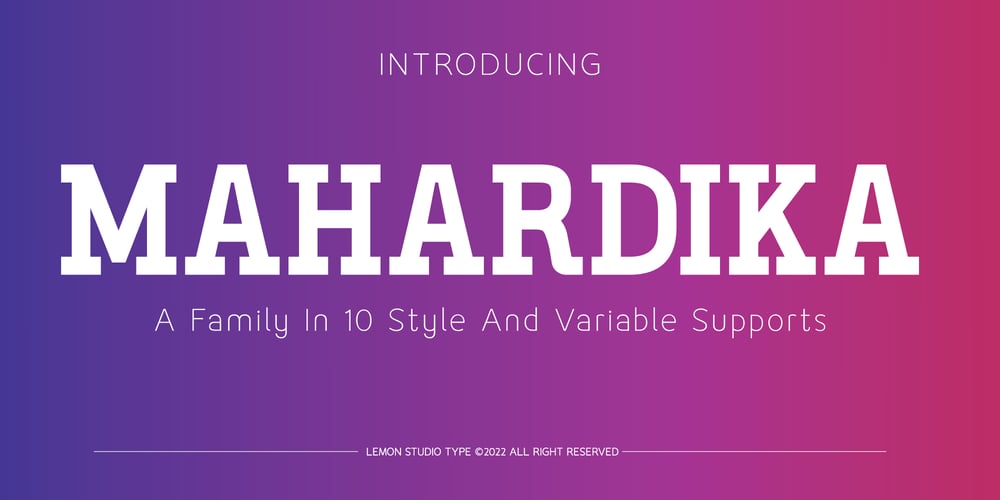
Mahardika Font Family was designed by Herpin Maulana and published by Lemon Studio Type. Mahardika contains 11 styles and family package options. Mahardika is a Retro Sport sans Serif family with variable font technology, and its axis weight range spreads from Light to black forms. Flexible and adaptable,it is 100% Latin Plus, Supporting 219 Latin-based languages, which are spoken in different 212 countries.This font is suitable for any project. Great for graphic design and any display use. It can easily work for web, signage, corporate as well as editorial designs.Jantur Type has 9 weights with a total of 9 styles. and legibility makes it suitable for any kind of text application, from brand design to extensive text layouts.